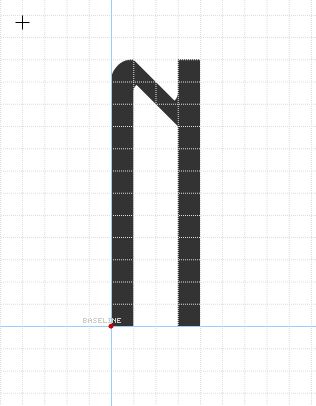
BottomHeavy
The capitol N doesn't seem to work very well. It looks like a letter from another language.
Had you noticed that the 'd' is back-to-front?
Would this work for the 'N'?